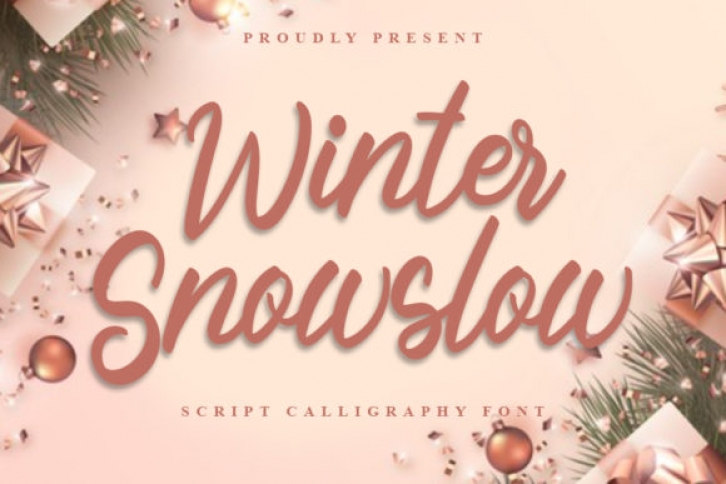
Winter Snowslow is a unique and elegant handwritten font. It looks beautiful on a variety of designs requiring a personalized style, such as wedding invitations, thank you cards, weddings, greeting cards, logos and so on.